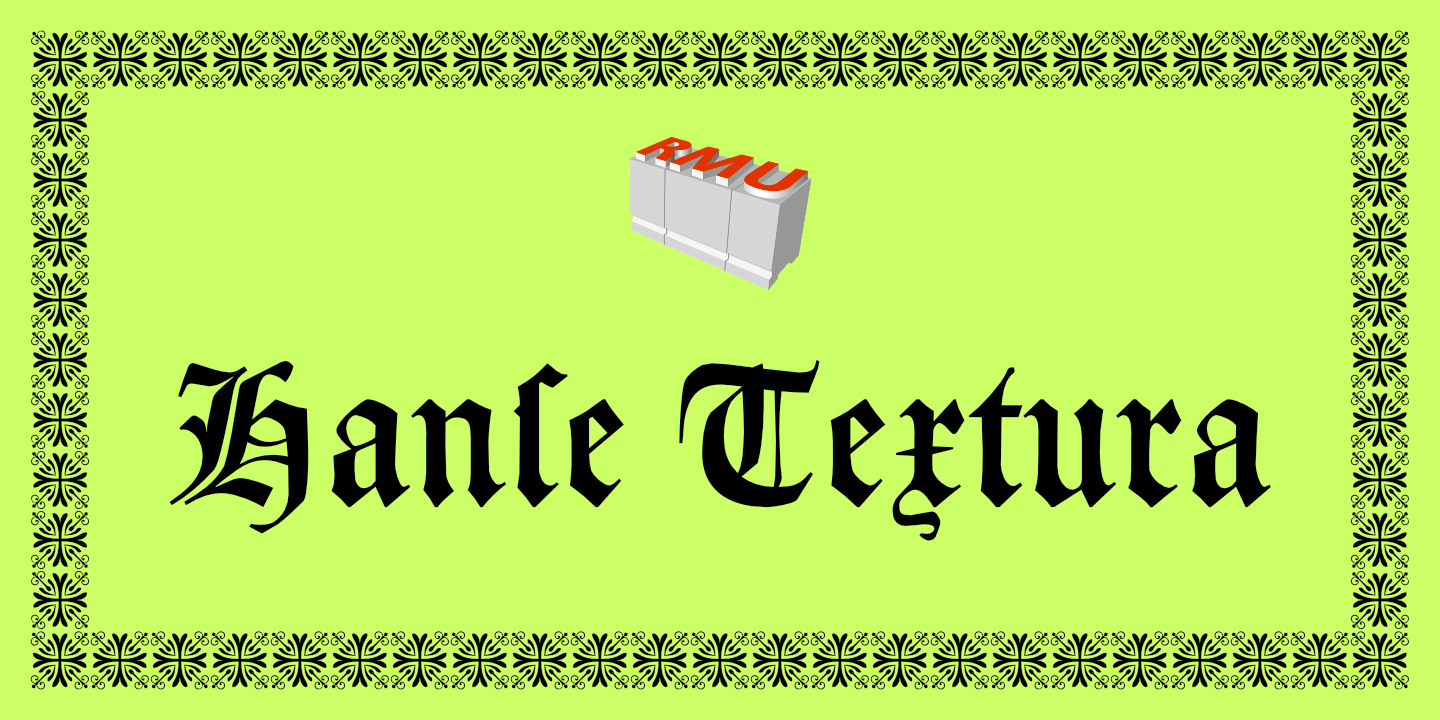
Hanse Textura Font is perfect for medieval-themed designs, historical publications, Gothic revival projects, fantasy game interfaces, brewery branding, traditional craft labels, religious manuscripts, vintage certificates, heraldic designs, and ceremonial invitations that require authentic medieval character.
What makes Hanse Textura Font exciting is its authentic recreation of medieval Gothic lettering traditions with modern digital precision. This remarkable typeface captures the essence of historical manuscript writing while maintaining exceptional readability for contemporary applications. The font's intricate details and traditional proportions transport viewers to the grandeur of medieval Europe, making it an invaluable tool for historical and fantasy-themed projects.
The Hanse Textura Font family includes traditional Textura styles, ornamental capitals, decorative initials, and period-appropriate punctuation marks. Special medieval symbols, flourishes, and ornamental borders complement the main typeface, while multiple stylistic alternates provide authentic variations for professional manuscript recreation.
Hanse Textura Font Free Download delivers unparalleled authenticity for projects requiring historical accuracy and medieval atmosphere. Its carefully researched letterforms maintain the traditional Gothic aesthetic while ensuring modern functionality across digital and print applications. The font's versatile nature makes it suitable for both display headlines and extended text passages.
Embrace the timeless beauty of Hanse Textura Font and create designs that honor medieval craftsmanship while meeting contemporary design standards with remarkable historical authenticity.